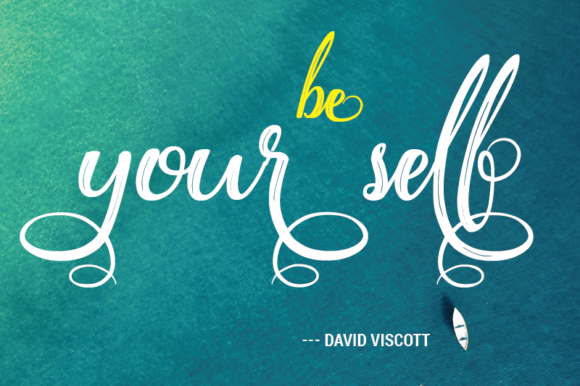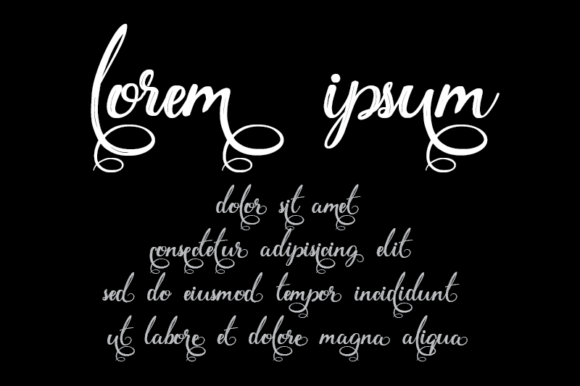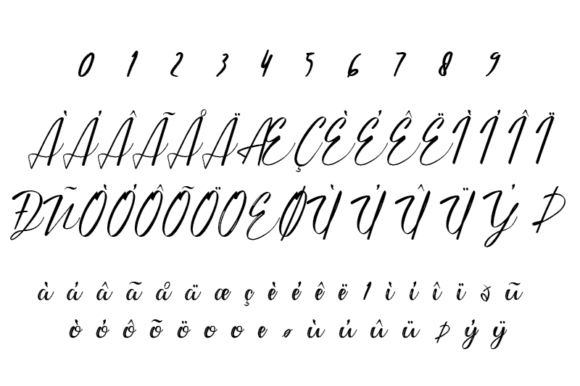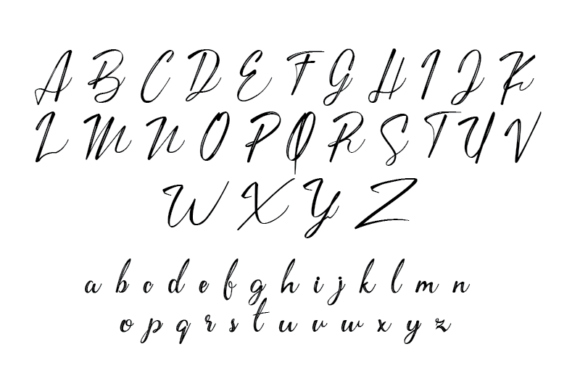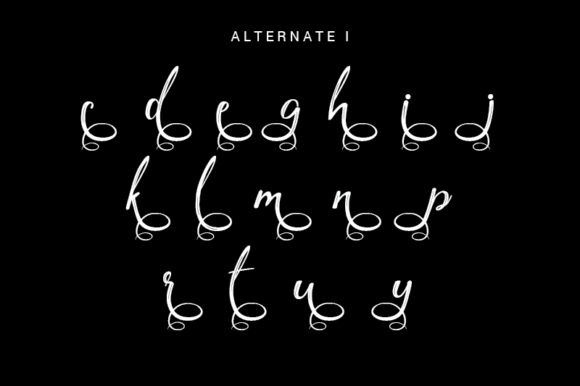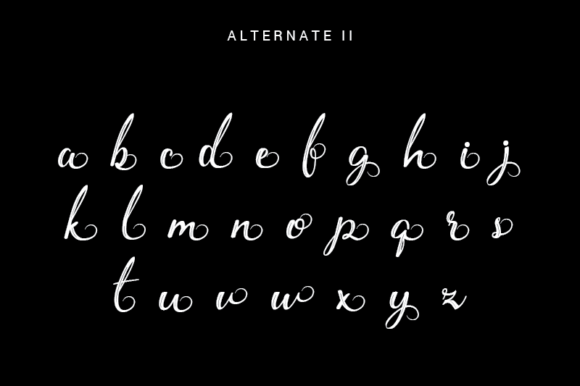
The Perfect Brushstroke: Unveiling Anastasya Font
There’s something magical about the moment when a design idea clicks – the rush of creativity, the spark of inspiration, and the excitement of bringing it to life. As designers, we’ve all been there, and it’s a feeling that never gets old. But what if we told you there’s a secret ingredient that can take your designs to the next level? Meet Anastasya Font, a delicate, elegant, and flowing handwritten font that’s about to become your new best friend.
This beautiful font is more than just a pretty face – it’s a versatile tool that can elevate any design. With its well-balanced characters and effortless charm, Anastasya Font is the perfect addition to your creative arsenal. Whether you’re working on a branding project, a wedding invitation, or a social media campaign, this font is sure to make your designs come alive.
Anastasya Font Key Features
- Font Family: Anastasya
- Unique Characteristics: Anastasya is a beautiful, elegant script font designed for various purposes, including invitations, weddings, and any other romantic occasion. It features swashes, ligatures, and other decorative elements that make it perfect for adding a touch of sophistication and elegance to your designs.
- Language Support: Multilingual support for most European languages, including English, Spanish, French, German, Italian, Portuguese, and many others.
Review: Anastasya Font
As a designer, I’ve had the chance to work with the Anastasya Font, and I must say it’s a fascinating choice for those looking for a unique, elegant typeface. ✨
Here are a few things that really stand out:
- The Anastasya Font is incredibly versatile, making it suitable for a wide range of applications, from book titles to magazine covers.
- The letterforms are well-designed, with a beautiful balance between curves and lines, giving the font a sense of sophistication and refinement.
- The font also comes with a wide range of languages supported, making it a great choice for global brands.
However, there are some limitations that designers should be aware of:
- The font can feel a bit too ornate for some applications, potentially overwhelming the reader.
- The font family is quite large, which can make it difficult to navigate and find the perfect font for a project.
- The font’s italic and bold styles can feel a bit inconsistent with the regular style.
- ⚠️ Lack of OpenType features.
Overall, I think the Anastasya Font is a great choice for designers looking for a high-end, elegant typeface. However, it’s not without its limitations, and designers should be mindful of these when choosing the font for their projects.
Anastasya Font is a beautiful, elegant script font that is perfect for:
- Wedding and event signage
- Any project that requires a touch of elegance and sophistication
Alternatives to Anastasya Font
Playfair Display is a high-end serif font ideal for luxury branding and editorial content. It’s perfect for creating a sophisticated and elegant atmosphere. Compared to Anastasya Font, Playfair Display has a more refined and classic look, with intricate details and flourishes. Use it for high-end fashion, jewelry, or automotive brands.
Carolyna Pro is a modern script font suitable for creative and artistic projects. It’s great for adding a touch of whimsy and personality to designs. In comparison to Anastasya Font, Carolyna Pro has a more fluid and cursive feel, making it perfect for social media, advertising, and packaging design.
Great Vibes is a elegant script font perfect for creating a sense of sophistication and refinement. It’s ideal for luxury brands, high-end fashion, and fine dining. Compared to Anastasya Font, Great Vibes has a more refined and classic look, with a touch of elegance and sophistication. Use it for creating a sense of luxury and exclusivity.